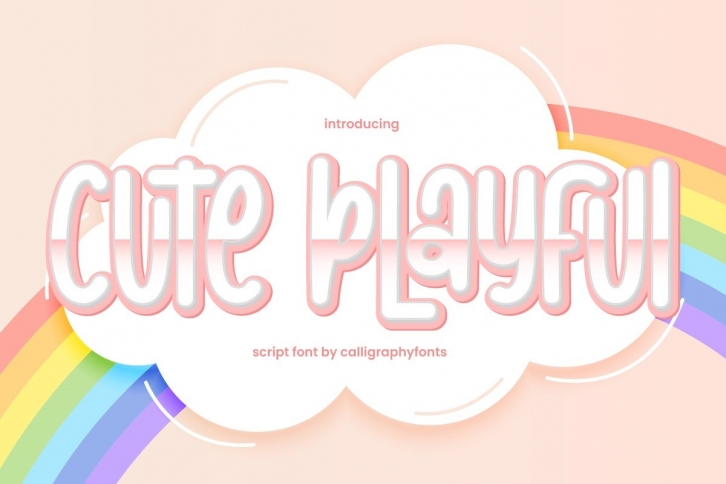
Cute playful is a fun and friendly display font, perfect for various creative projects! This typeface is designed with a cartoon/ comic feel, and it is perfect for storybooks, magazines, children’s designs, and more! This font is PUA encoded which means you can access all of the glyphs and swashes with ease!